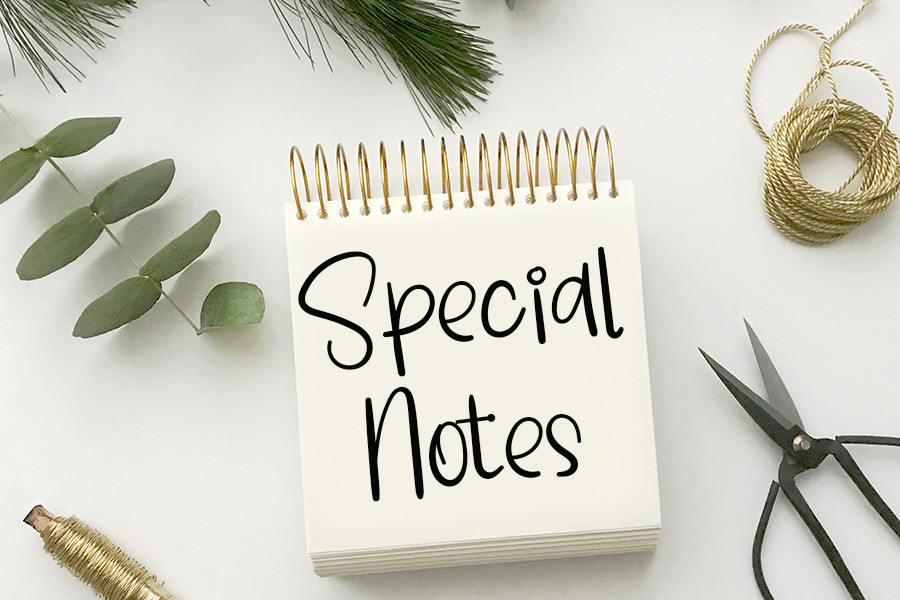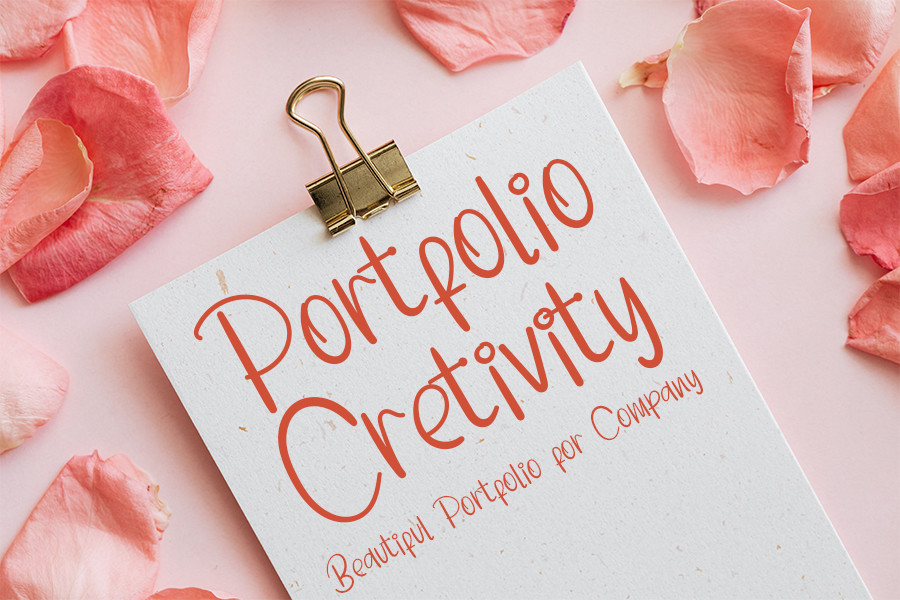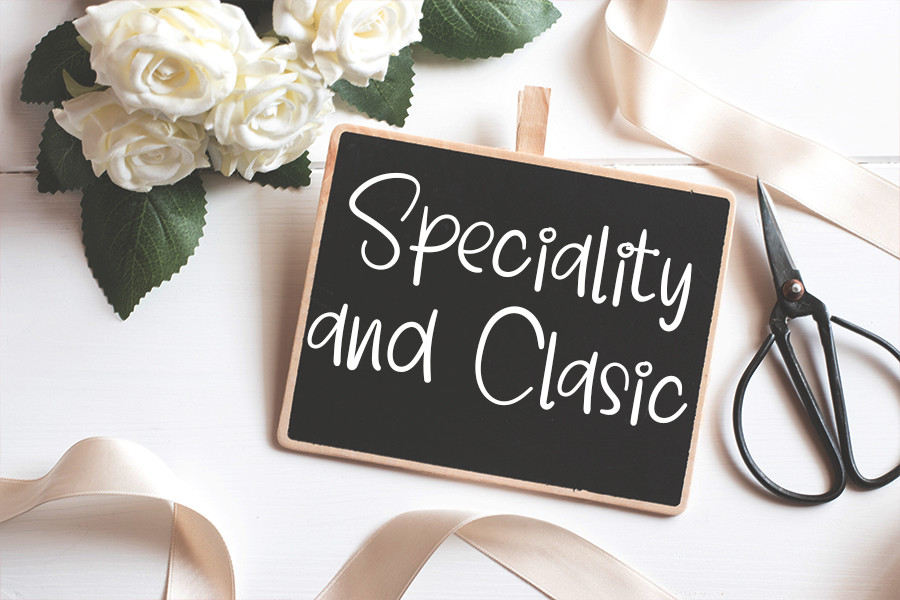
Handmade Signature Regular Waterfall
This font retains a classy calligraphic influence while feeling contemporary and fresh. This versatility will attract a wide range of creative ideas, from letterheads and titles to stationery.